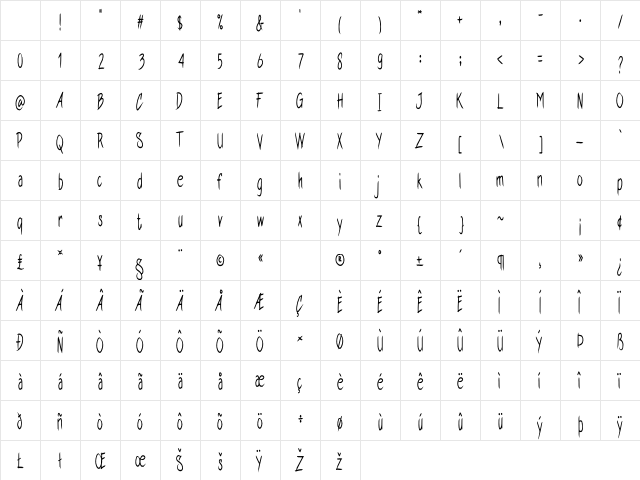
Increase is a composed and adaptable typeface that performs quietly and consistently across a wide range of design contexts.
Pro Tip: Use Increase in both headline and body roles to test its range before committing to a single application.